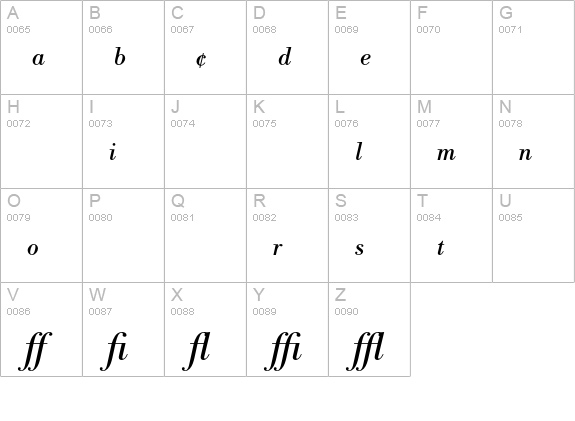
Bodoni BE Italic Expert is a distinctive, italic variant in the Bodoni typeface family \xE2\x80\x94 well suited to design and typography projects.
The Bodoni BE Italic Expert font exudes elegance and sophistication with its sleek and modern design. Its distinctive italic style adds a touch of flair to any text, making it perfect for projects that require a refined and polished aesthetic. The clean lines and balanced proportions of this font make it a versatile choice for a wide range of design applications. What sets Bodoni BE Italic Expert font apart is its expertly crafted design that enhances readability while maintaining a sense of style and grace. Whether used for editorial design, branding, or signage, this font is sure to make a statement and leave a lasting impression. Best of all, the Bodoni BE Italic Expert font is available for free download at FontsMarket.com, making it easily accessible to designers and creatives looking to elevate their projects with a touch of sophistication. Don't miss out on the opportunity to enhance your designs with this timeless and elegant font that is both stylish and functional.